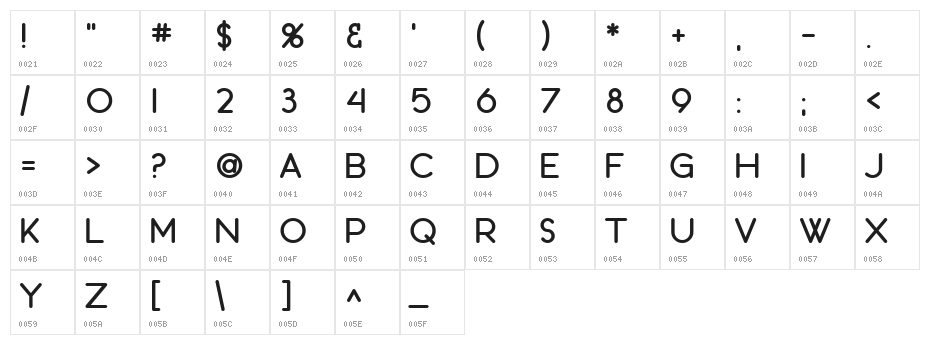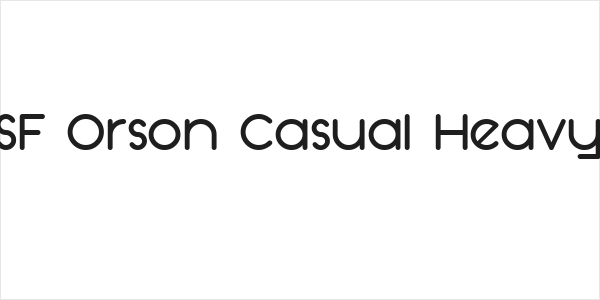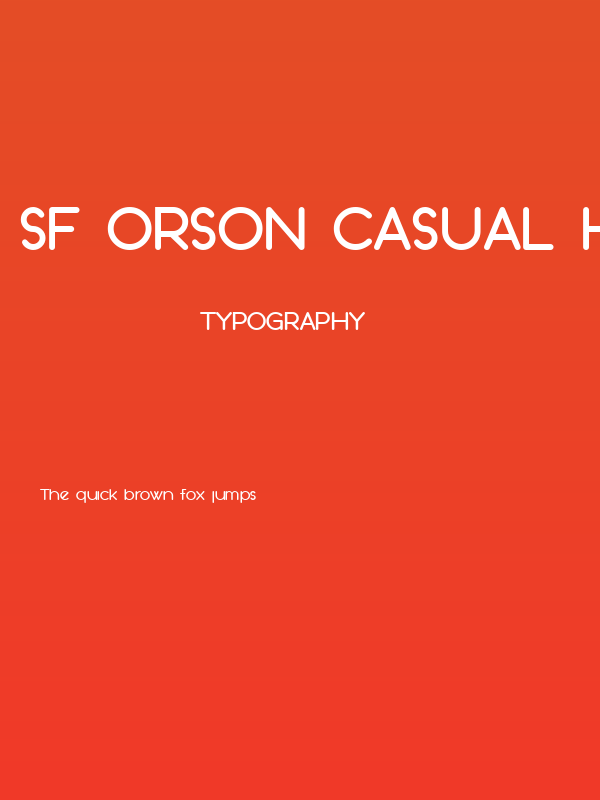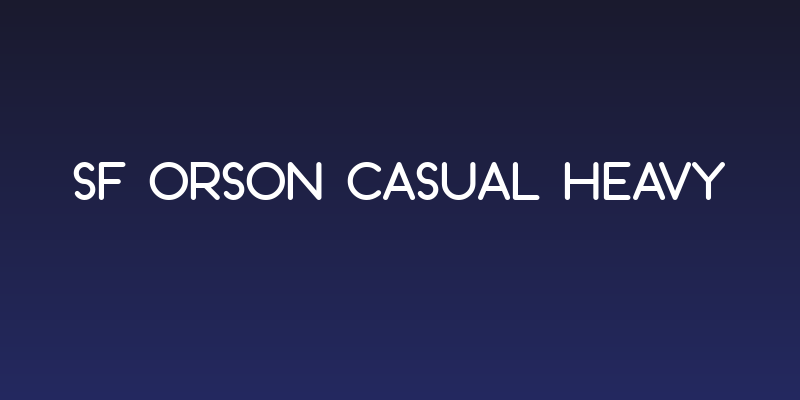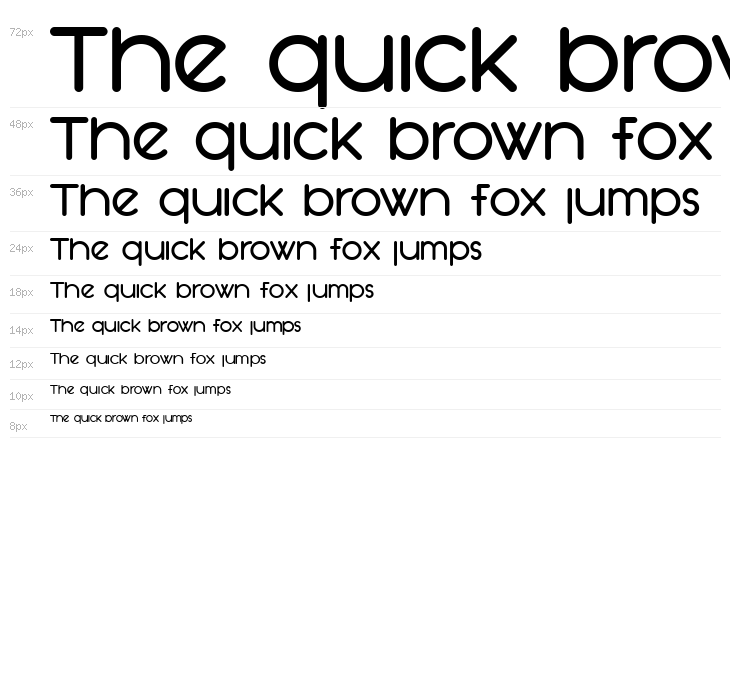
SF Orson Casual Heavy Font
SF Orson Casual Heavy Description
This font features a modern and playful design with rounded edges and a casual appearance. The characters are bold and have a consistent stroke width, giving them a uniform look. The uppercase and lowercase letters maintain a similar style, with the lowercase letters slightly more compact. The numerals are clear and easy to read, matching the overall aesthetic of the alphabet. Special characters are included, maintaining the same rounded and bold characteristics. This font is versatile and can be used in various design projects.
Use CaseHeadlines, Logos, Branding
Proposed ProjectsIdeal for branding, posters, and playful design projects where a modern and approachable look is desired.